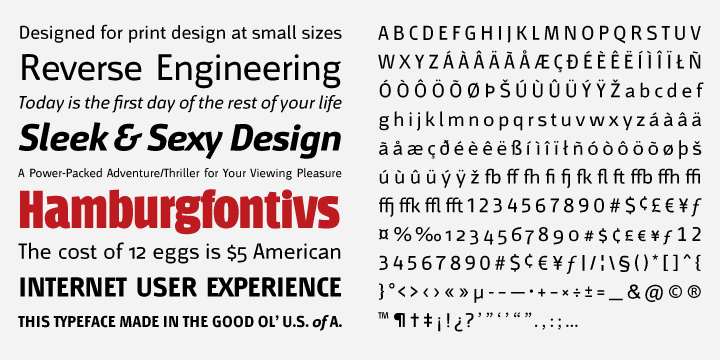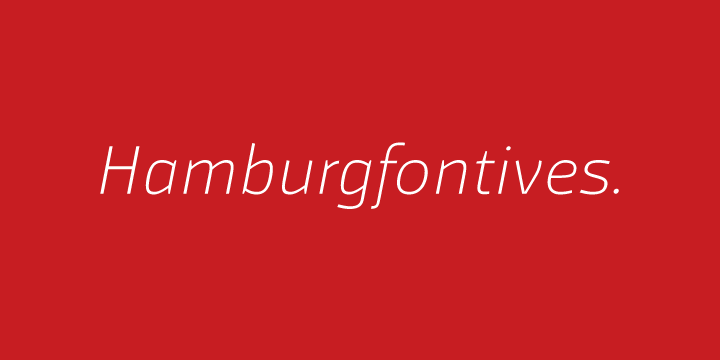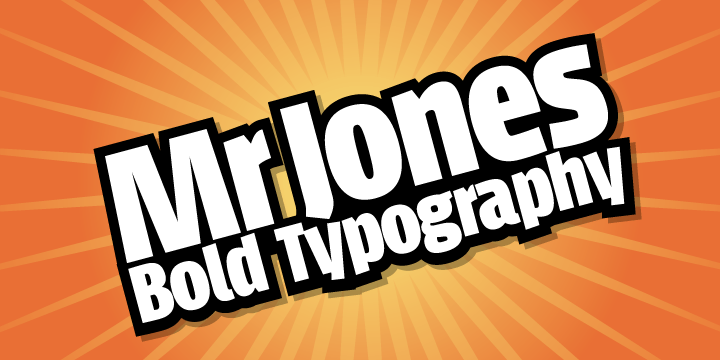
Mr. Jones
Font Family by Miller Type Foundry
Buy NowMr Jones was originally conceived as a family for print design consisting of a sans and a headline. The lowercase are wide for legibility at small sizes while the caps are narrower to save space and keep an even balance of negative space when used in body copy. The overall widths of certain characters have been adjusted to almost extremes to keep an even balance of white space around each letter. He works well in body copy, but will need decreased tracking for larger settings. He comes with small caps; proportional, oldstyle, and tabular figures and discretionary ligatures.